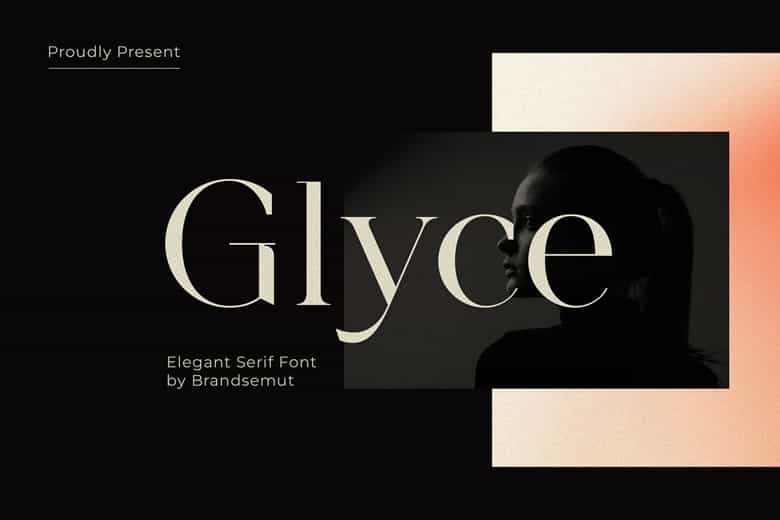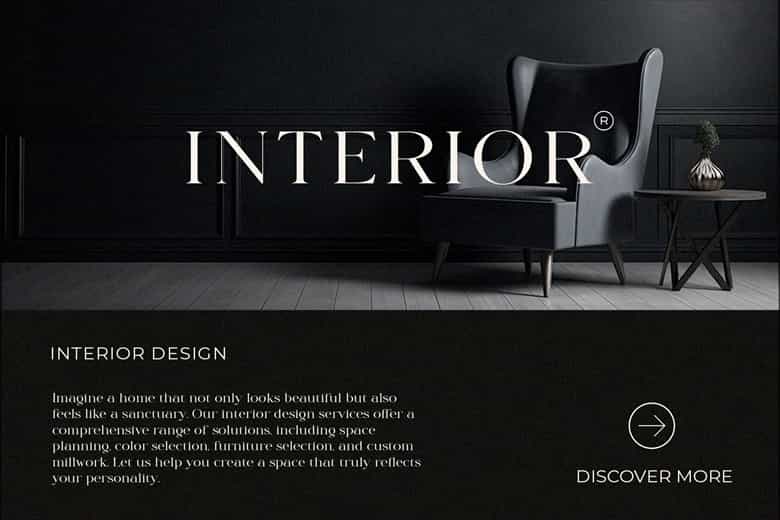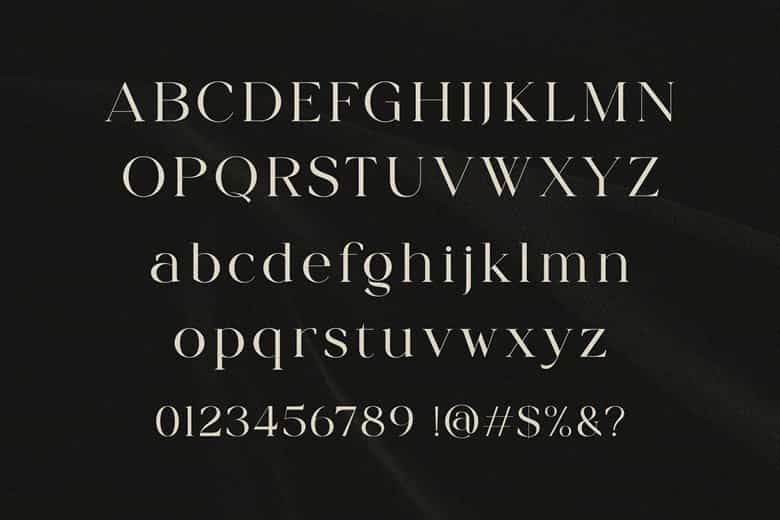
Glyce is one of the most elegant times new serif fonts, excellent for use as headings, logos, brands, magazines, packaging, and invitations. Glyce, soft curvatures put in a very clean cut look which adds an elegance plus to any project.